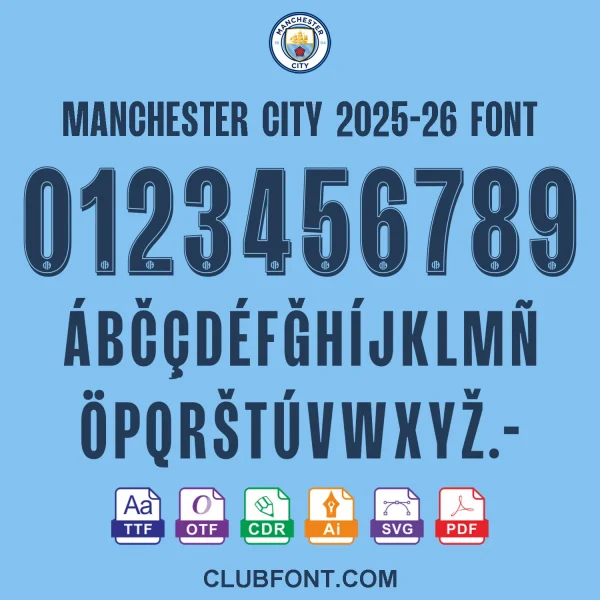
Manchester City 2025-26 kit font Pack: Official Kit Typography
The definitive Manchester City 2025-26 kit font is now available for graphic designers, jersey customizers, and die-hard Sky Blues supporters. This meticulously crafted typeface replicates the exact numerals and letterforms seen on the pitch at the Etihad. If you require the authentic Manchester City 2025-26 kit font for professional mockups or DIY projects, this pack provides the highest fidelity available online.
Unlike standard typefaces, our Manchester City 2025-26 kit font captures the unique bevels, spacing, and proportions mandated by the Premier League. We have recreated the specific “Sky Blue” match-day aesthetic, ensuring your Haaland #9 or Foden #47 replicas look identical to the real deal. From the curvature of the “3” to the stance of the “A,” every detail of the Man City 25-26 font has been checked against high-resolution match footage.